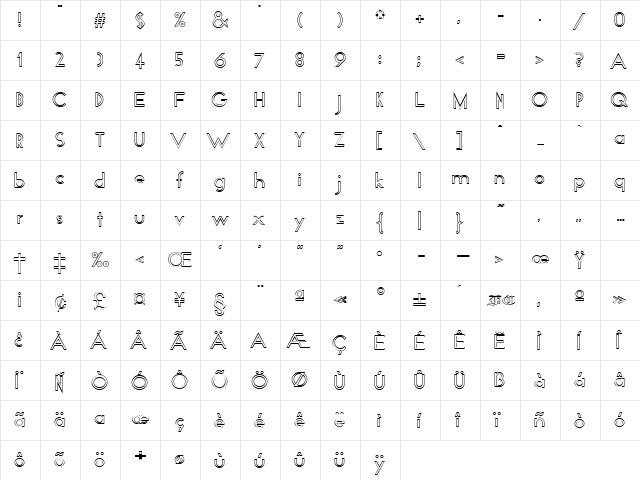
NazarethOpen Regular
Design Context for NazarethOpen Typeface
NazarethOpen takes a measured approach to typography — its balanced proportions and neutral character make it a reliable workhorse for both digital and print work.